Meghan Trainor – Toy With Me font recommendations are inspired by the album’s upbeat pop vibes, confident attitude, and infectious personality. Meghan Trainor’s music often blends retro pop influences with contemporary flair—combining sass, confidence, and accessible hooks. The album title Toy With Me suggests playfulness, teasing energy, and visual fun, making typography a crucial part of translating that mood into design.
Typography for this project should feel expressive, lively, and engaging. Rather than traditional or minimal fonts, this album concept thrives on bubbly letterforms, dynamic shapes, and fonts with personality that match the music’s pop sensibility. Playful bubble fonts, quirky display fonts, and expressive drawn styles reflect the audacious confidence that defines Meghan Trainor’s artistic identity.
In this article, we explore a curated selection of typefaces that bring energy, charm, and visual appeal to Meghan Trainor – Toy With Me. These fonts work beautifully for album covers, merch design, posters, digital visuals, and promotional branding that feels bold and unforgettable.
The Visual Identity Behind Toy With Me
Toy With Me feels fun, flirty, and unapologetically bold. It’s not about subtlety—this album’s message is direct, high-spirited, and stylized. Typography that mirrors these qualities leans into playful shapes, exaggerated forms, and designs that feel tactile and animated.
Fonts in this category should:
- Communicate playfulness and personality
- Feel bold and visually active
- Support vibrant color palettes and dynamic layouts
- Work across both digital and print formats
The following Meghan Trainor – Toy With Me font recommendations are designed to help you create visuals that resonate with confidence, charm, and creative energy.
Font Recommendations
1. Clefy Bubble Font
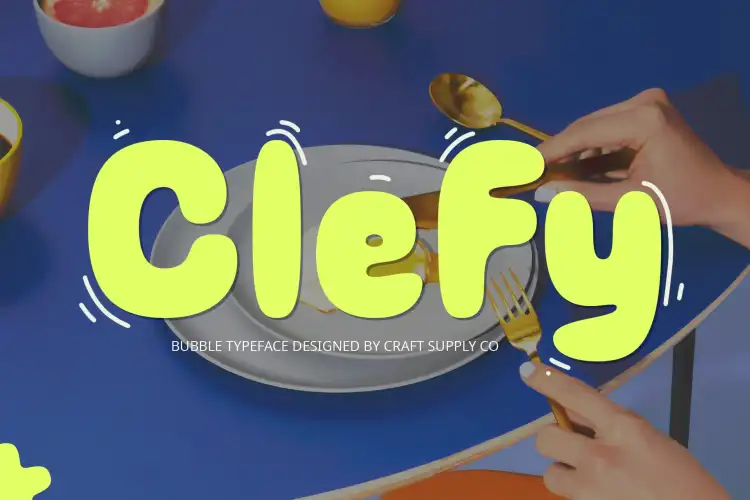
Clefy Bubble Font features rounded, playful letterforms that feel expressive and full of personality. Its bubbly shapes are ideal for lighthearted album titles and pop visuals that celebrate fun and confidence.
2. CS Shimer Bubble Font
CS Shimer Bubble Font adds dynamic motion with its soft curves and energetic stance. This font captures attention instantly, making it perfect for pop-album headlines and promotional graphics.
3. CS Mikey Bubble Font
CS Mikey Bubble Font offers playful letterforms with a slightly retro feel. It works beautifully for visuals that balance throwback charm with modern pop vibrancy.
4. Beonty Funky Bubble Display Font
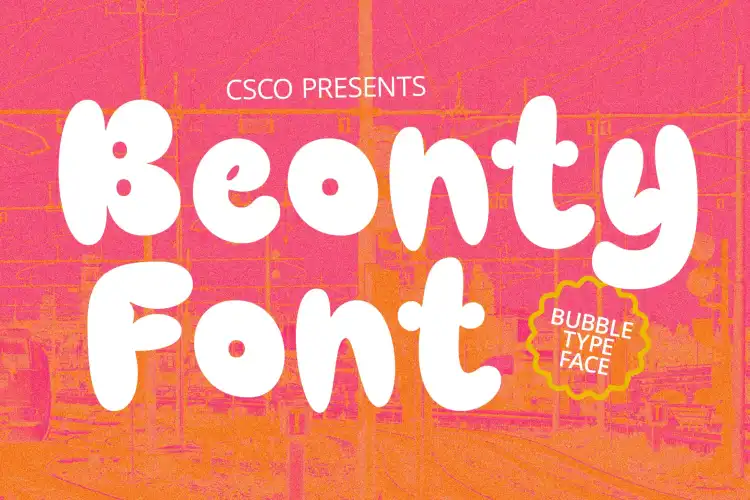
Beonty Funky Bubble Display Font delivers energetic curves and cheerful shapes. Its bold personality makes it ideal for posters, album art, and bold branding concepts tied to a playful pop aesthetic.
5. Monaz Bubble Font Playful Design
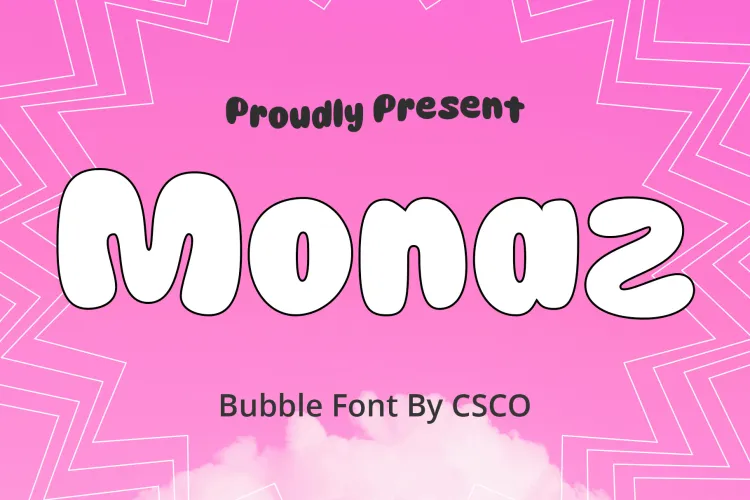
Monaz Bubble Font Playful Design emphasizes organic, friendly shapes that feel warm and engaging. It’s perfect for titles and visuals where approachability and charm are key.
6. Bages Bubble Font Dynamic Cheerful
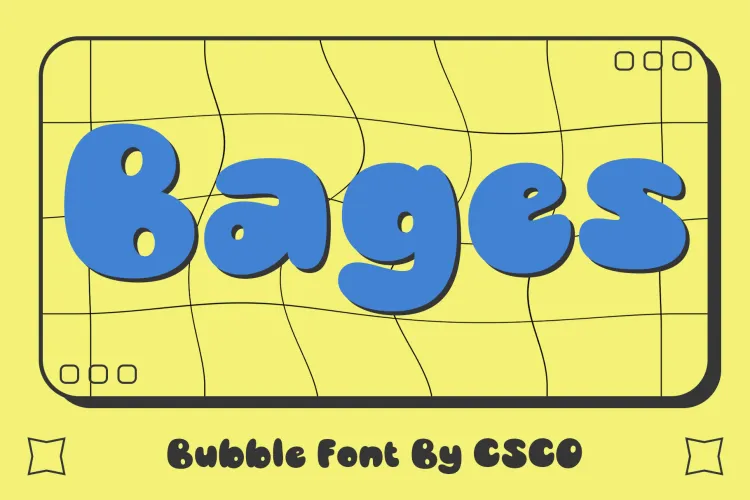
Bages Bubble Font Dynamic Cheerful brings cheer and bold motion to type. Its dynamic form supports bold layouts and vibrant pop visuals that need to feel alive and energetic.
7. Radey Bubble Font Playful Design
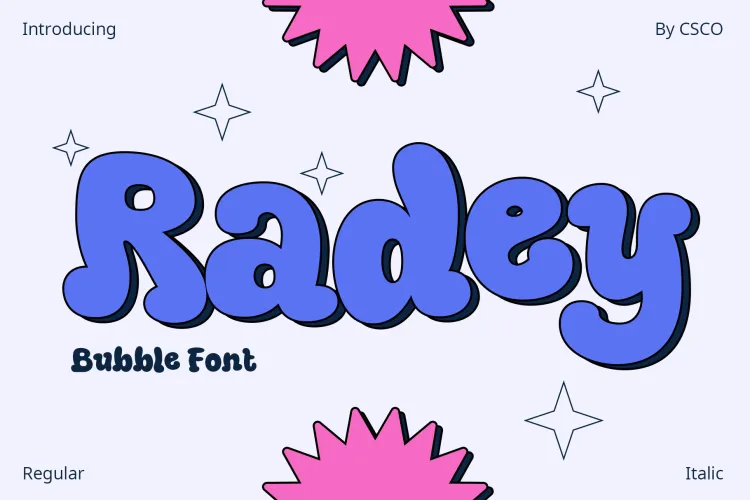
Radey Bubble Font Playful Design delivers soft, rounded shapes that evoke the tactile joy of pop culture design. It’s ideal for visuals that want to convey warmth and high energy.
8. CS Macaron Drawn
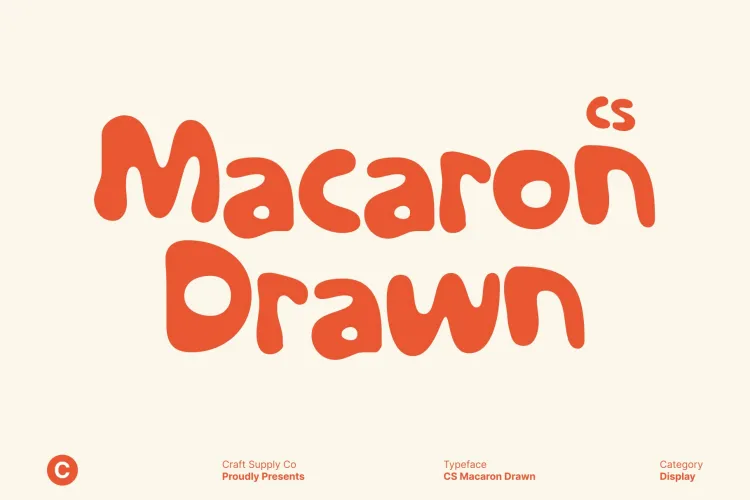
CS Macaron Drawn introduces a casual, hand-rendered feel that adds personality to supporting text or accent elements. It pairs beautifully with bold titles without overshadowing them.
9. Carlise 3D Font
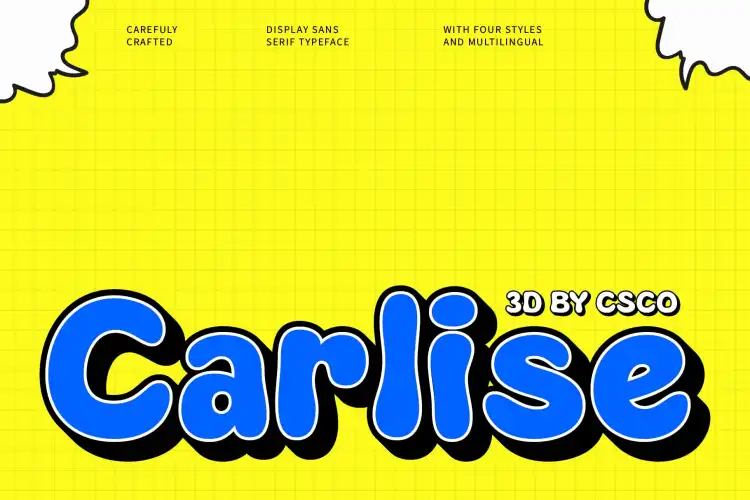
Carlise 3D Font brings dimensional depth and visual drama. Its layered effect adds extra pop, making headlines feel tactile and attention-grabbing—perfect for album covers or social graphics.
10. Balwine Rough Graffiti Bubble Display Font
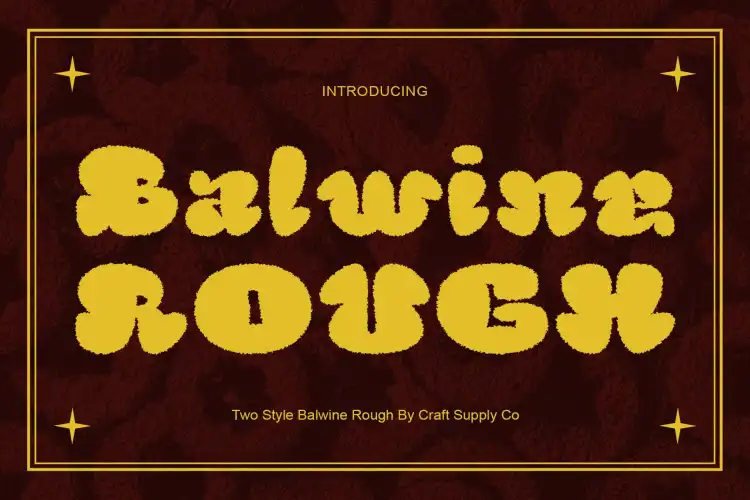
Balwine Rough Graffiti Bubble Display Font adds street style and bold attitude to bubble lettering. Its rough texture and bubble design are perfect for youthful, urban-inspired visuals that feel both playful and edgy.
How to Use These Fonts Effectively
When applying these Meghan Trainor – Toy With Me font recommendations, consider pairing bold, playful display fonts with clean, minimal background elements. This helps maintain readability while amplifying visual impact.
- Use bubble fonts for main titles and standout visuals.
- Pair drawn fonts with simpler typefaces for balance.
- Leverage vibrant colors to enhance playful typography.
- Experiment with scale to emphasize key elements.
- Let text interact with imagery for dynamic compositions.
Bold typography deserves a strong layout, so avoid overcrowding and let each typeface breathe and shine.
Meghan Trainor – Toy With Me font recommendations center around playful bubble, funky display, and expressive drawn fonts that reflect the album’s upbeat energy and bold personality. These typefaces add character and visual charm to any pop-inspired design project.